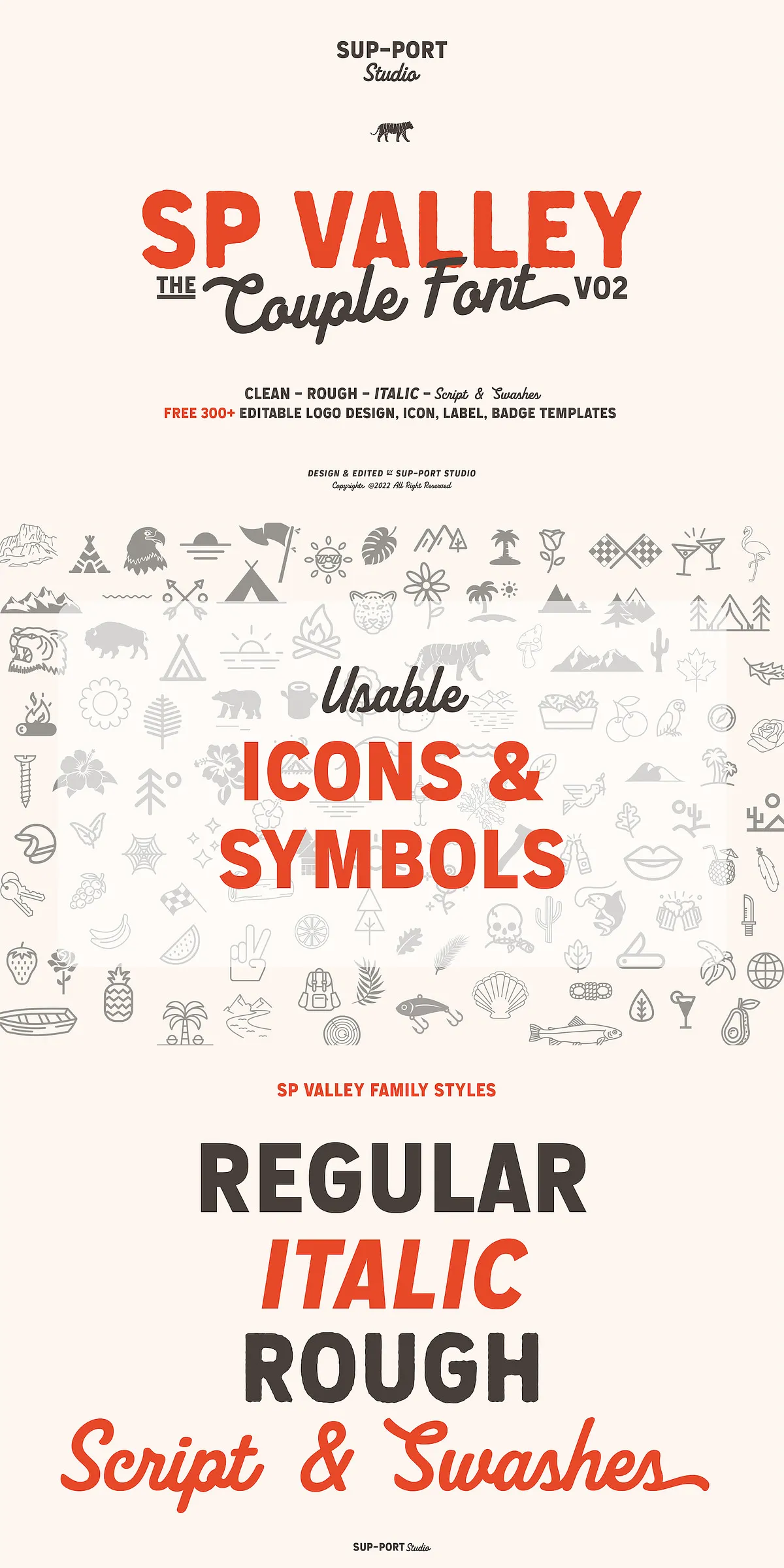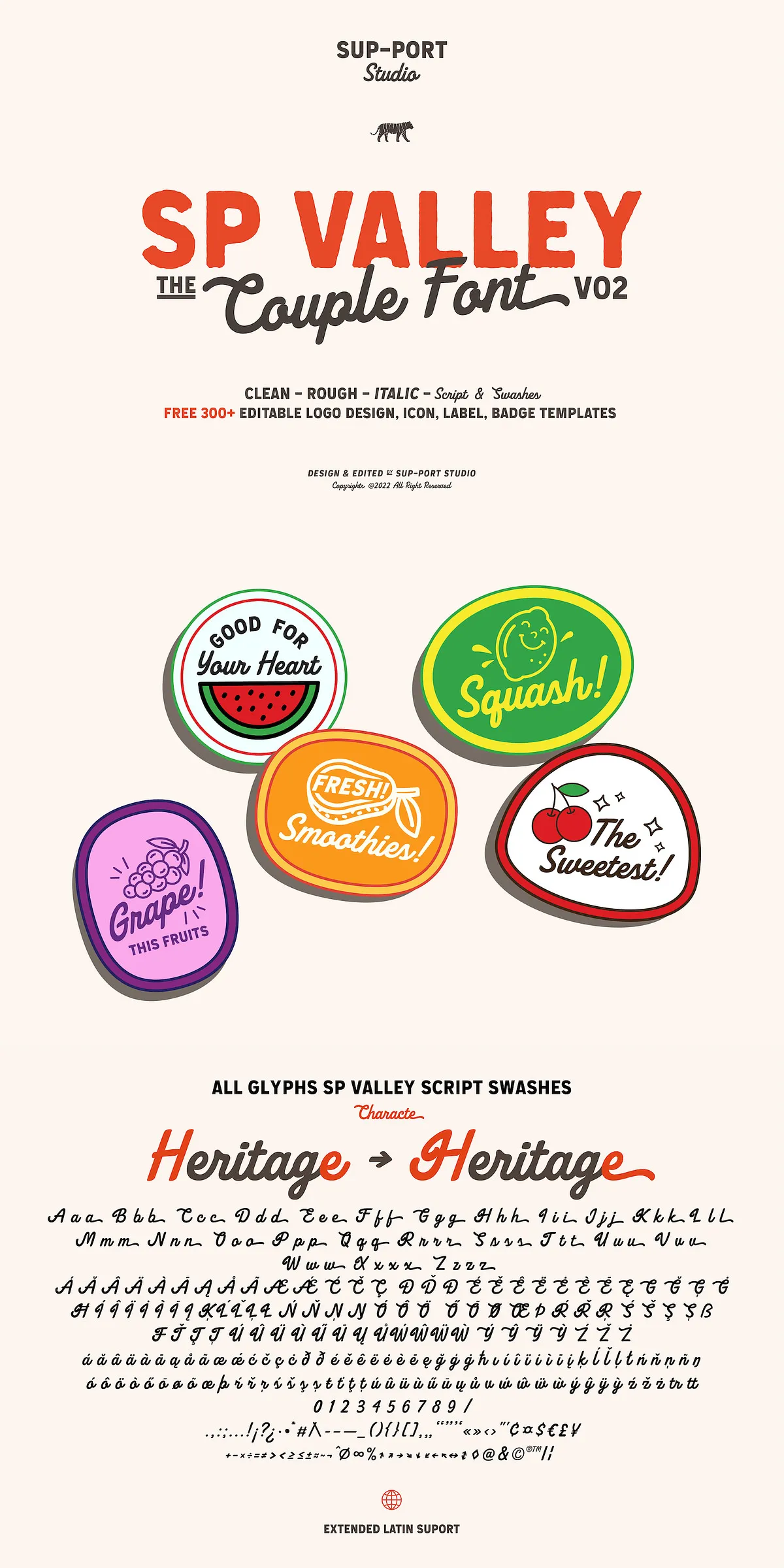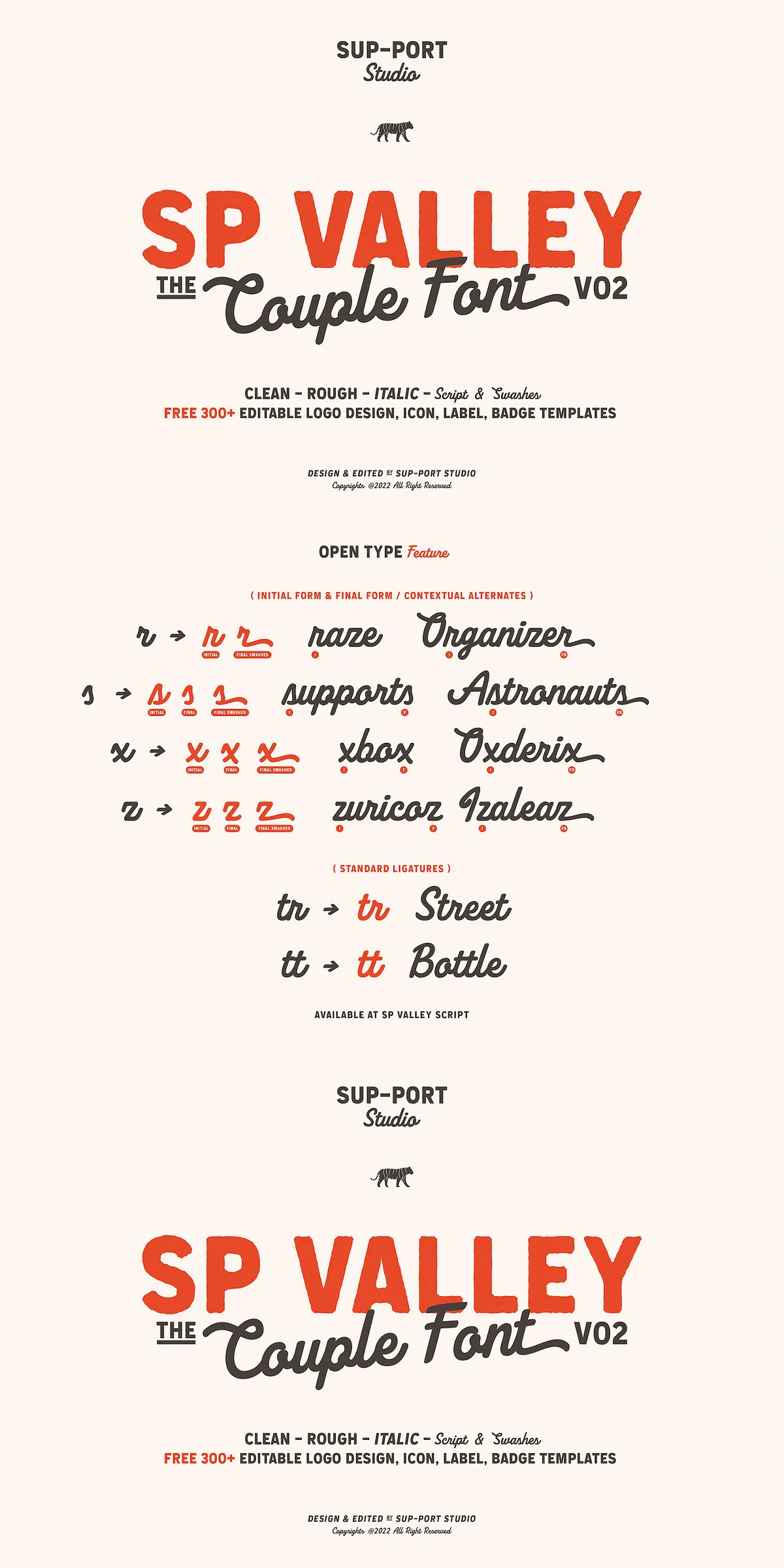
Unlock limitless creativity with the SP Valley Couple Font Bundle — a dynamic, trend-forward collection engineered for designers, brand creators, and visual storytellers who demand more than just typography. This isn’t just a font suite; it’s a complete design ecosystem built for versatility, elegance, and impact. Whether you’re crafting premium logos, designing bold t-shirt graphics, launching branding kits, or enhancing nature photography, this bundle delivers precision, personality, and professional polish in every stroke.
Bold Typography Meets Timeless Style: The Core of the Bundle
At the heart of SP Valley lies a powerful fusion of clean sans-serif and elegant script typefaces — all designed with modern vintage flair, a touch of sophistication, and an unmistakable contemporary edge. These fonts aren’t copy-pasted trends — they’re carefully crafted to stand out in a crowded digital space, offering a look that feels both fresh and enduring.
- SP Valley Regular – Crisp, balanced, and highly legible. The ideal base for headlines, body text, and corporate branding.
- SP Valley Italic – Adds movement and rhythm to your layout. Perfect for emphasis, pull quotes, and expressive design elements.
- SP Valley Rough – A textured, handcrafted variation that brings grit and authenticity to posters, packaging, and rustic-themed projects.
- SP Valley Script – A flowing, artistic script with natural curves and soft weight variation, ideal for wedding invites, product labels, and luxury branding.
- SP Valley Script Swashes – The finishing touch. These ornamental flourishes elevate any script design, adding elegance and uniqueness to every word.
Every font is optimized for real-world use, combining aesthetic power with functional excellence.
Pro-Level Features: OpenType Magic at Your Fingertips
Go beyond basic typing with advanced OpenType features built into every style:
- Ligatures – Smooth, professional connections between letters (e.g., “fi”, “fl”, “ffi”) that eliminate awkward gaps and improve readability.
- Ordinals – Auto-converts “1” to “1st”, “2” to “2nd”, enhancing typographic correctness in editorial and formal documents.
- Alternative Glyphs – Access to multiple character versions for creative variation and unique visual flavor.
- Multi-lingual Support – Full compatibility with over 200 languages, including French, Spanish, German, Italian, Portuguese, Dutch, and more.
- Currency Symbols, Arrows, Punctuation & Numbers – A comprehensive character set ensures no missing elements in your project, no matter how complex or international.
These features aren’t extras — they’re essential tools that streamline your workflow, elevate your design quality, and ensure professional-grade deliverables every time.
Design-Ready Templates & Editable Graphics: Save Hours, Deliver More
This bundle doesn’t stop at fonts — it comes packed with ready-to-use design assets that slash development time and boost creativity:
- Logo Templates (Fully Editable) – Plug in your brand name, tweak colors, and instantly generate multiple logo variations. Text is fully editable — just type your own word.
- Set of 110 Ribbon & Badge Graphics – All vector-based and fully editable. Adjust stroke width, color, size, and shape to match your brand voice. Perfect for social media badges, product tags, or seasonal promotions.
- Bonus Set of 100+ Icons – A diverse library of modern flat icons designed to match the SP Valley aesthetic. Use them for infographics, app UIs, website headers, or print collateral.
These templates are seamlessly integrated with the fonts, creating cohesive, eye-catching designs that look like they took days to build — but only took minutes to launch.
Perfect for Every Creative Application
SP Valley Couple Font Bundle excels in diverse design environments:
- Logo & Brand Identity – Craft memorable, distinctive brand marks with script elegance and sans-serif clarity.
- T-Shirt & Merchandise Design – Make standout apparel with bold typography, expressive swashes, and icon integration.
- Print & Packaging – Ideal for postcards, flyers, packaging, menus, and stationery with rich visual impact.
- Business Cards & Brand Materials – Add a modern, premium feel to your professional presence.
- Nature & Photography Branding – Combine soft script with natural themes for organic, artistic portfolios and gallery displays.
Stop settling for generic fonts that blend in. With SP Valley Couple Font Bundle, you don’t just choose a typeface — you choose a complete visual identity system. From elegant script swashes to robust multilingual support, every detail is built with purpose, precision, and passion.